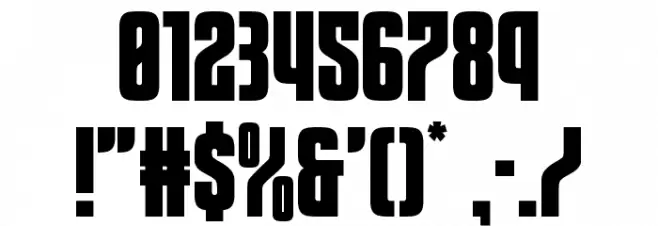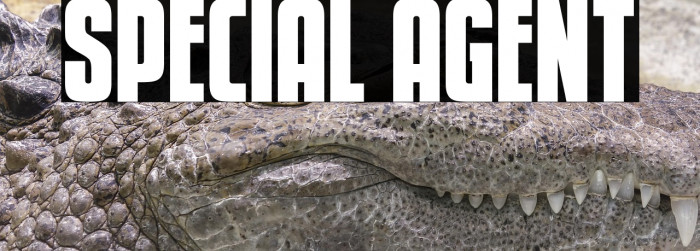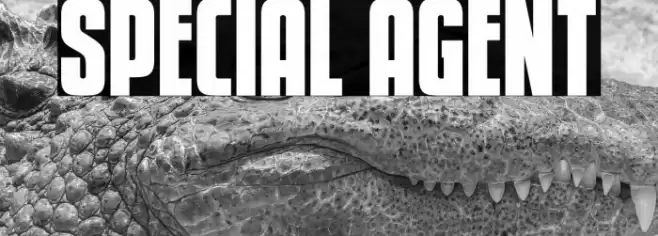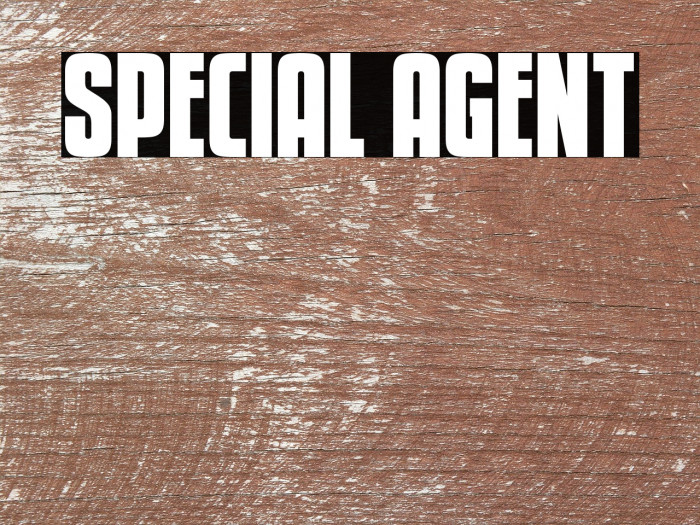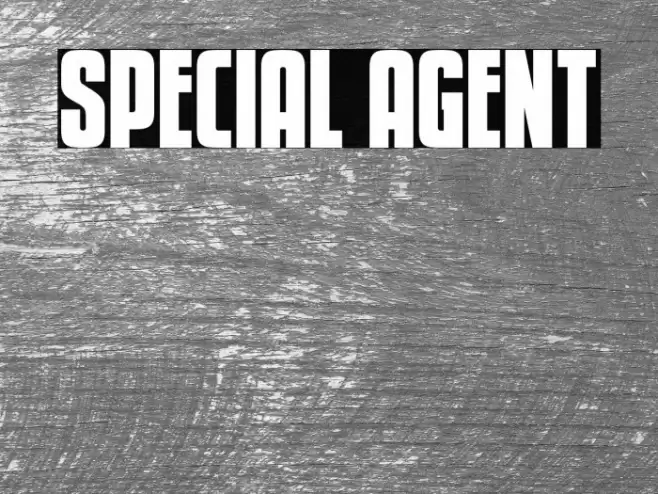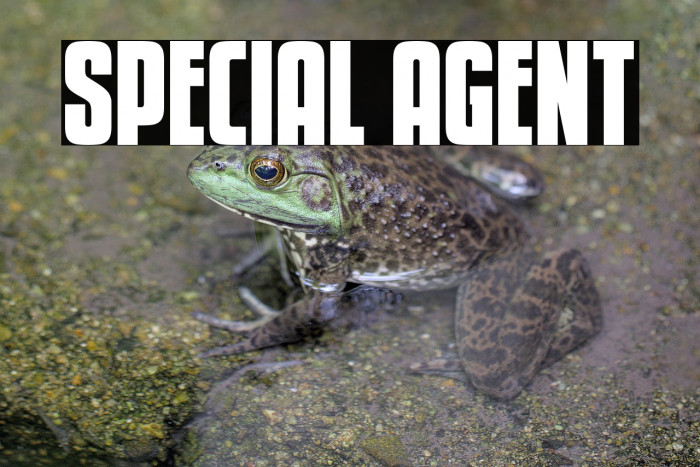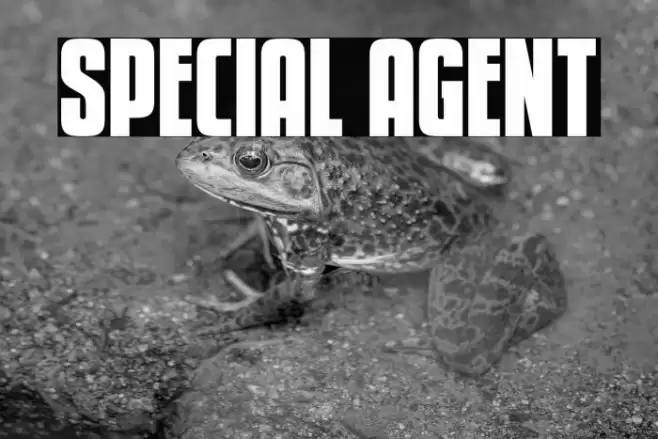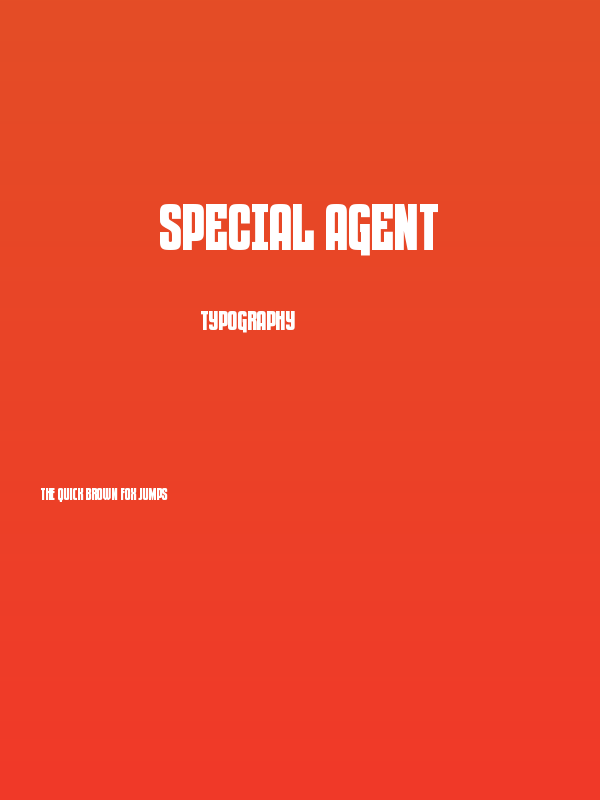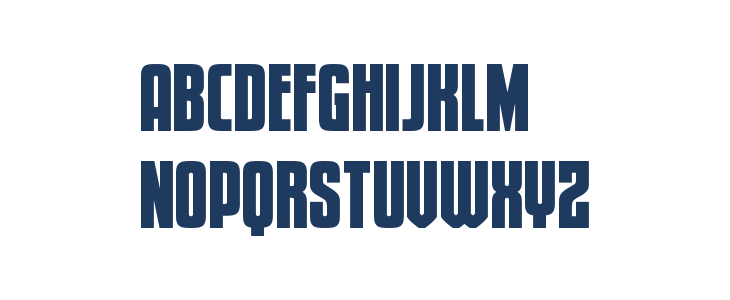
Special Agent Font
Special Agent Description
This font is a bold, impactful typeface characterized by its thick, blocky letters and strong presence. The uppercase letters are uniform in height, creating a cohesive and powerful look. The numbers and special characters maintain the same boldness, ensuring consistency across all text elements. The font's design is straightforward yet commanding, making it ideal for attention-grabbing headlines or titles. Its geometric shapes and solid lines give it a modern and assertive feel, suitable for projects that require a strong visual impact.
| Proposed Projects | Ideal for posters, banners, logos, and any design needing a strong, bold statement. |